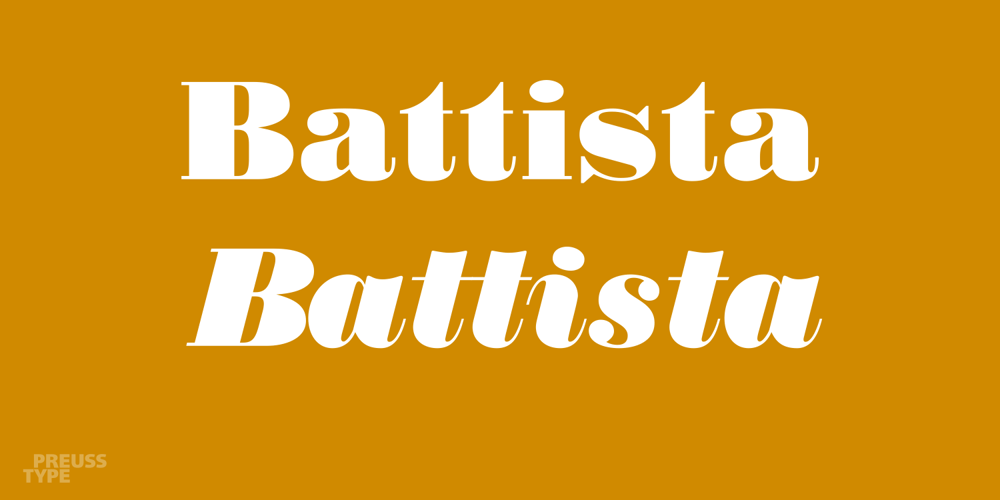
Battista Font Family was designed by Ingo Preuss and published by preussTYPE. Battista contains 7 styles and family package options. The BATTISTA typeface stands in the long tradition of the designs developed by Giambattista Bodoni, who made his famous typefaces in the end of the eighteenth century. Similar designs can be found on various specimen books e.g. Alexander Wilson, John Bell, Edmund Fry and Alexander Thibaudeau. One of the best italics was available by Stephenson Blake & Co. foundry form Sheffield, England. In the end of the nineteenth century an unknown punch cutter at the German type foundry Schelter & Giesecke made an very bold cut of this Bodoni design. He brought both designs, the regular and the italic to an new level of harmony. Compared to the original Bodoni designs the new typeface was a lot bolder, which was well taken by the audience in this time. The BATTISTA typeface is an remarkable design, assembled of ultra bold and very fine shapes, but in all, the spirit of Bodonis design was well preserved. BATTISTA is a classic display design. The fine details are best shown on larger text sizes.